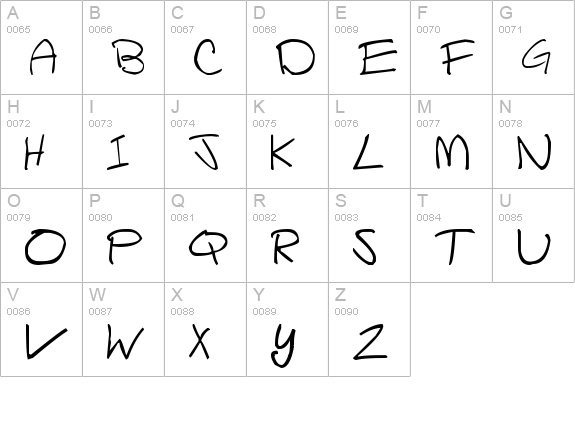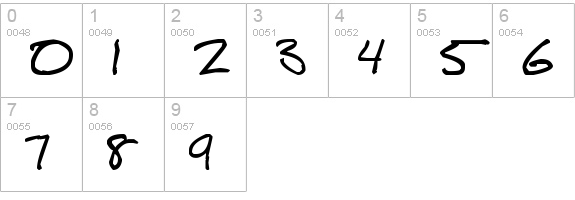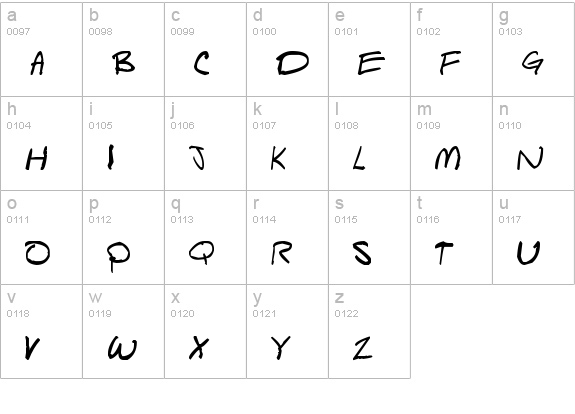
Introducing the whimsical and enchanting Script of Sheep font – a delightful typeface that will add a touch of playfulness to any design project. With its unique and charming handwritten style, this font captures the essence of innocence and imagination. Script of Sheep is perfect for a wide range of creative endeavors, from greeting cards and invitations to branding and logo design. Its flowing and organic letterforms evoke a sense of warmth and friendliness, making it a great choice for projects that aim to create a welcoming and inviting atmosphere. One of the best features of Script of Sheep is that it is freely available to download at FontsMarket.com. This means that you can add this delightful font to your collection without breaking the bank. Whether you're a professional designer or a hobbyist, having access to high-quality fonts like Script of Sheep can make a world of difference in your creative endeavors. With its extensive character set, Script of Sheep offers versatility and flexibility. It includes a range of ligatures, alternates, and swashes, allowing you to customize your designs and add a personal touch. Whether you're looking to create elegant wedding invitations or eye-catching social media graphics, this font has got you covered. The Script of Sheep font is designed with attention to detail, ensuring that every curve and stroke is beautifully crafted. Its smooth and fluid lines give it a sense of gracefulness, while its slightly irregular forms add a hint of whimsy. The result is a font that is both sophisticated and fun, making it a perfect choice for projects that aim to capture the imagination. So, why wait? Download Script of Sheep font for free at FontsMarket.com and let your creativity soar. Whether you're working on a personal project or a professional assignment, this font is sure to bring a touch of magic to your designs. Don't miss out on this opportunity to add a truly unique and captivating typeface to your collection.